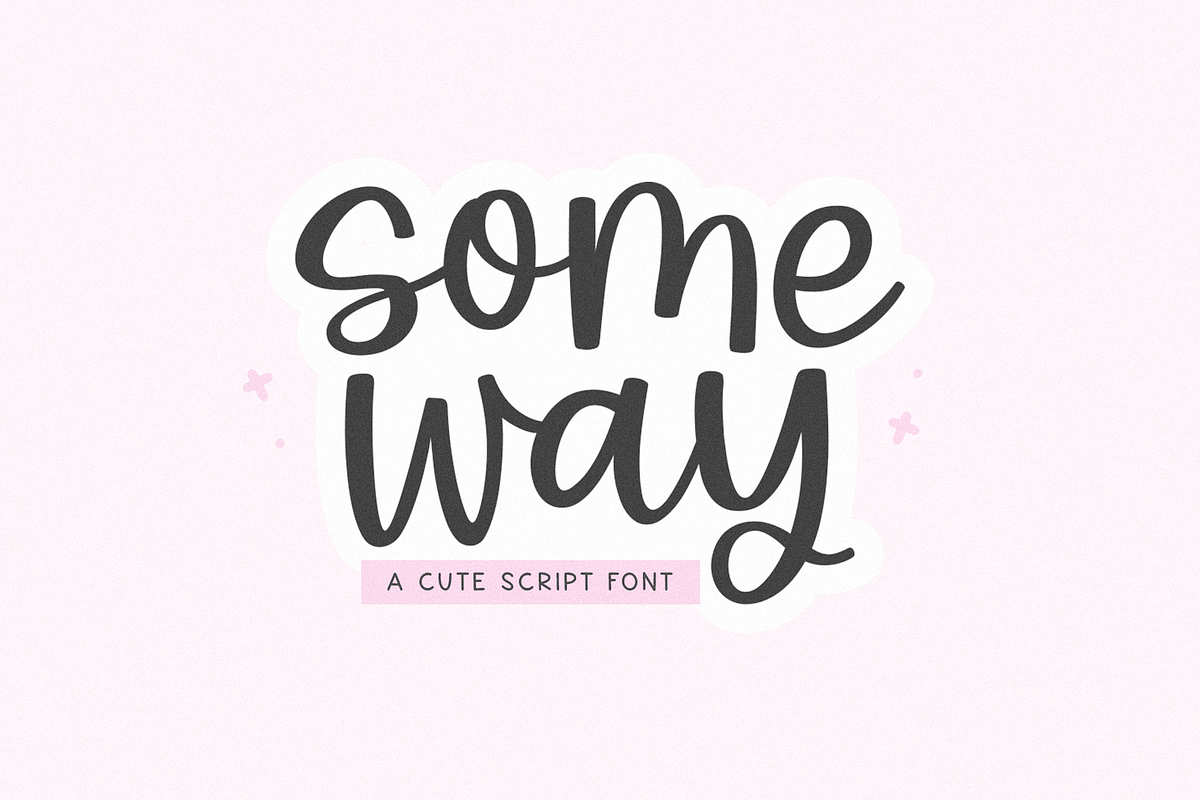
Someway | Cute Script Font Free Download is a sweet and whimsical handwritten typeface designed to bring charm and warmth to any project. Please note: you must purchase this font for commercial use, but you can test it through a free download. With its soft curves, bouncy baseline, and playful character, Someway is perfect for greeting cards, kids’ designs, logos, planners, social media content, and creative DIY projects.
This font feels like a handwritten hug—perfect for spreading joy and positivity through your design work. Whether you're crafting a fun brand or decorating a personal project, Someway | Cute Script Font Free Download adds an irresistible, heartfelt touch. It’s fully compatible with Adobe Illustrator, Photoshop, Canva, and other popular design tools, making it easy and fun to work with. Download it today for personal use and let your creativity shine with the cute, uplifting spirit of Someway!